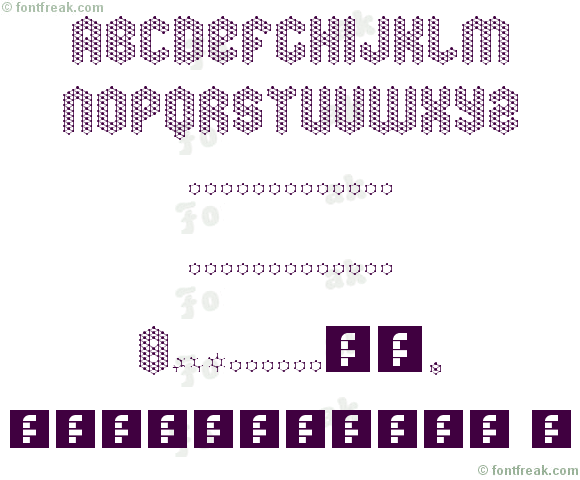
Molecular Complex by Wilson Thomas is a striking display font that embodies a unique blend of modern flair and intricate design elements. As a freeware typeface, it stands out with its captivating visual appeal, making it an excellent choice for creative projects. This font features a geometric structure with a bold stroke weight and a harmonious balance of contrast, giving it a distinct personality that draws the viewer's eye. The careful spacing between letters enhances readability while maintaining a dynamic, energetic presence, making it perfect for a variety of applications.
The Molecular Complex font is versatile and can be used in several contexts. It is particularly well-suited for creating eye-catching movie posters, where its bold characteristics can highlight titles and taglines effectively. The font works wonderfully for branding small businesses, especially those in the tech or creative industries, as it conveys a sense of innovation and modernity. Additionally, it can elevate restaurant menus, adding a touch of sophistication while remaining approachable. For graphic designers and content creators, this font is ideal for promotional materials, social media graphics, and event invitations, enabling them to craft visually stunning messages.
Targeting graphic designers, small business owners, and content creators alike, Molecular Complex offers a rich visual experience that enhances any design project. This font’s unique combination of boldness and elegance makes it a standout choice in the realm of display typefaces. By opting for the Molecular Complex font free download, users can incorporate this exceptional typeface into their work without any licensing concerns. Its distinctive style not only captures attention but also communicates a forward-thinking ethos, ensuring that any project featuring this font leaves a lasting impression.